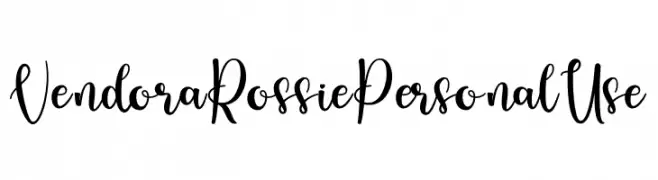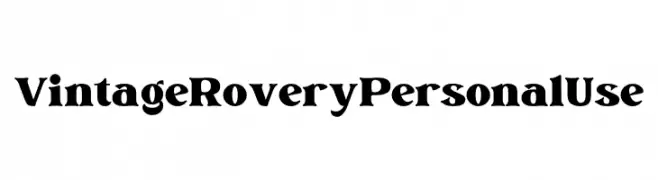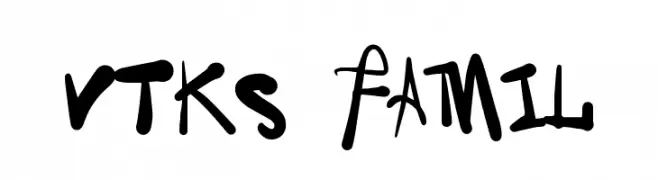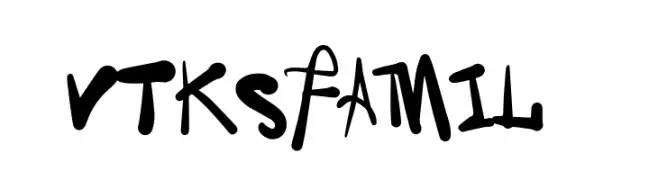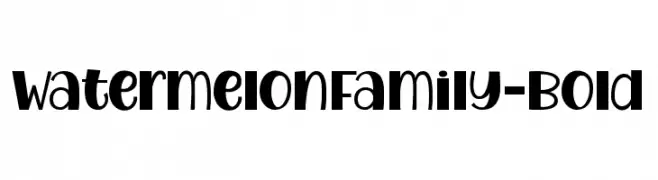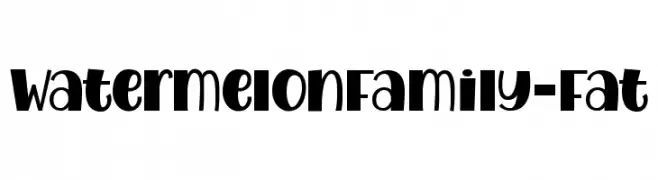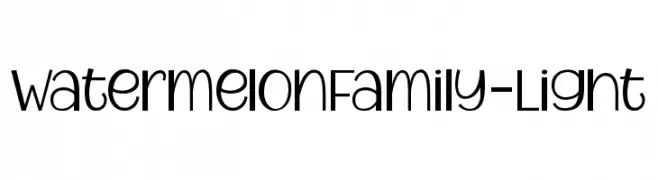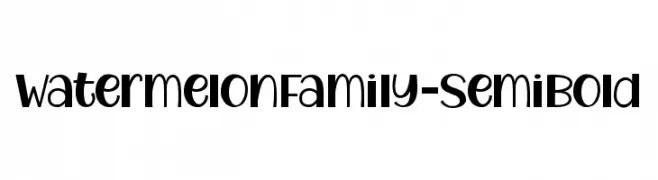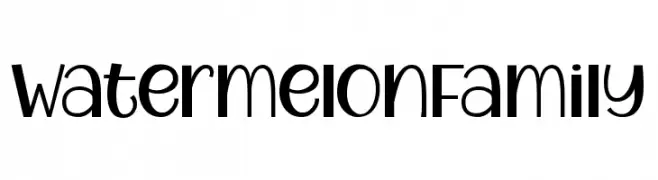
• Vendora Rossie Personal Use
A lively and elegant script font with flowing, high-contrast letterforms.
• VIET MAP LOVE
A pixelated, retro font with a digital, blocky style.
• Vintage Rovery Personal Use
A bold, vintage-style serif font with dramatic strokes and elegant curves.
• Vtks Family
A bold, handwritten font with playful curves and high contrast.
• WatermelonFamily
A playful, modern font with a blend of geometric and organic shapes.
• WatermelonFamily-Bold
A bold, playful font with a modern and decorative style.
• WatermelonFamily-Fat
A bold, playful font with exaggerated curves and a whimsical style.
• WatermelonFamily-Light
A modern, geometric font with consistent stroke width and clear readability.
• WatermelonFamily-SemiBold
A playful and bold font with rounded and angular elements, perfect for engaging designs.